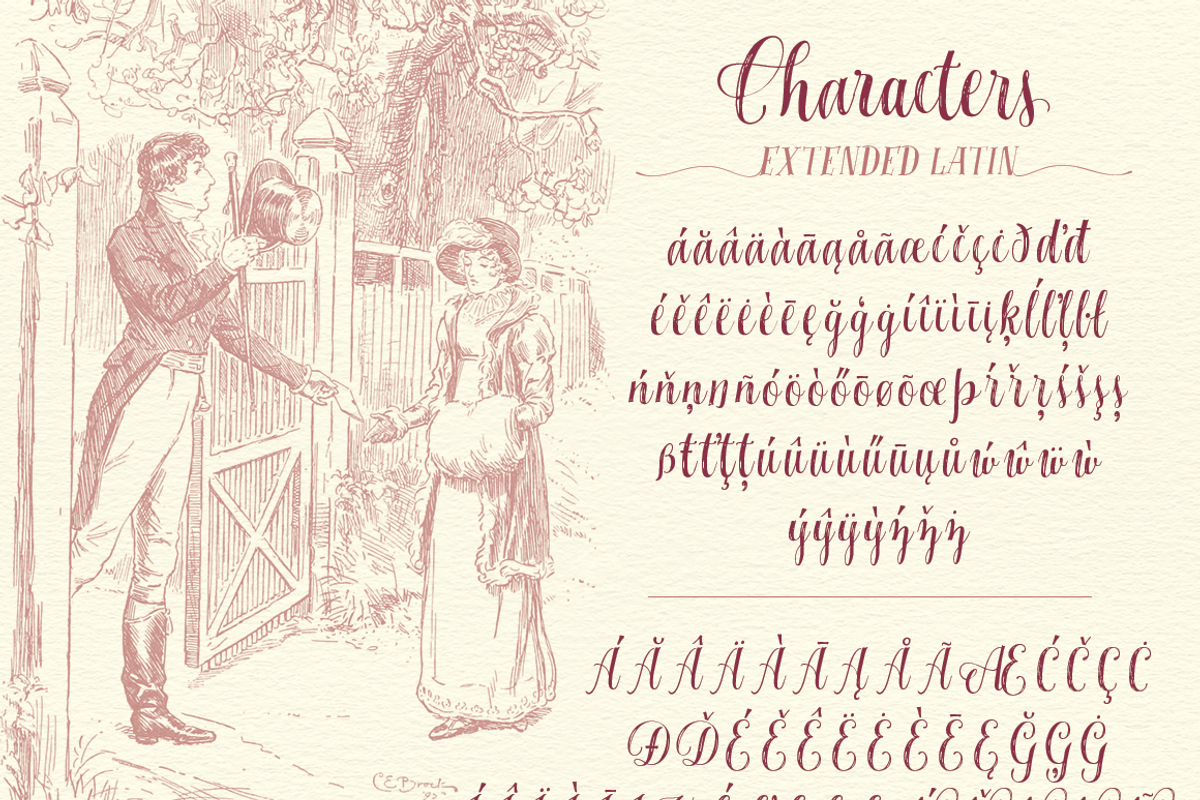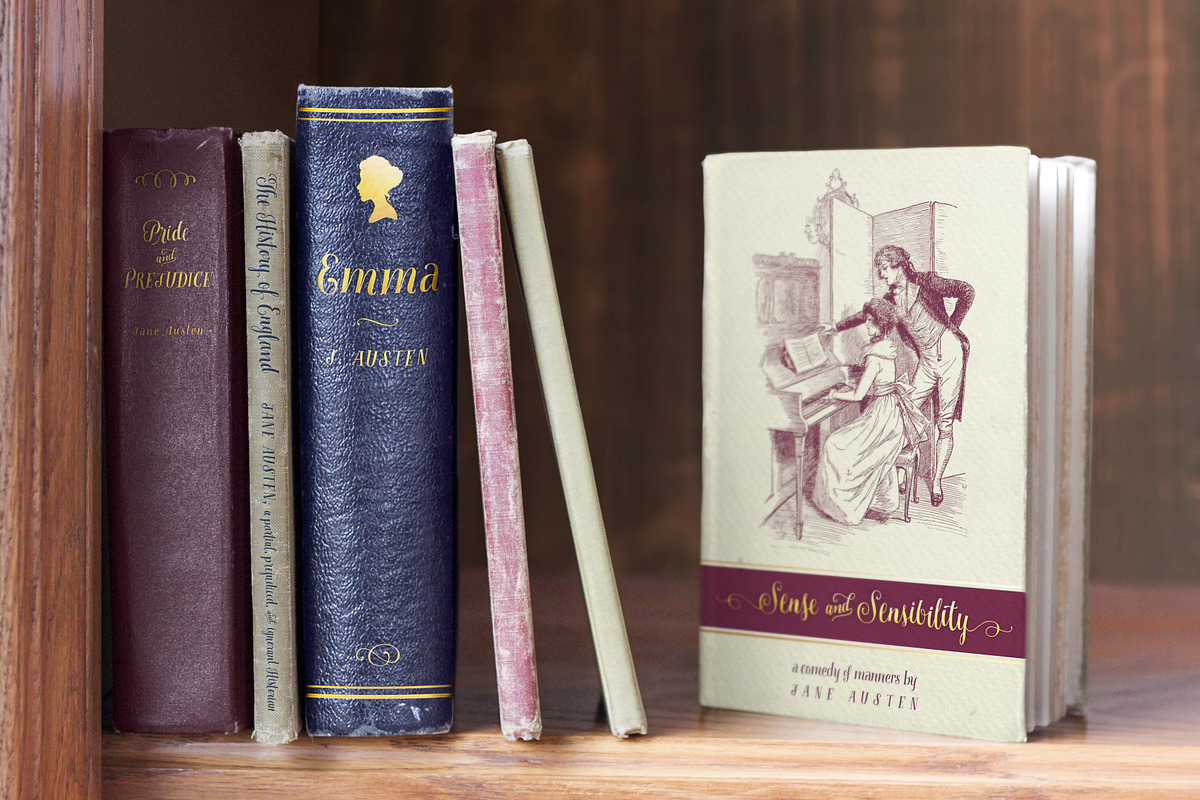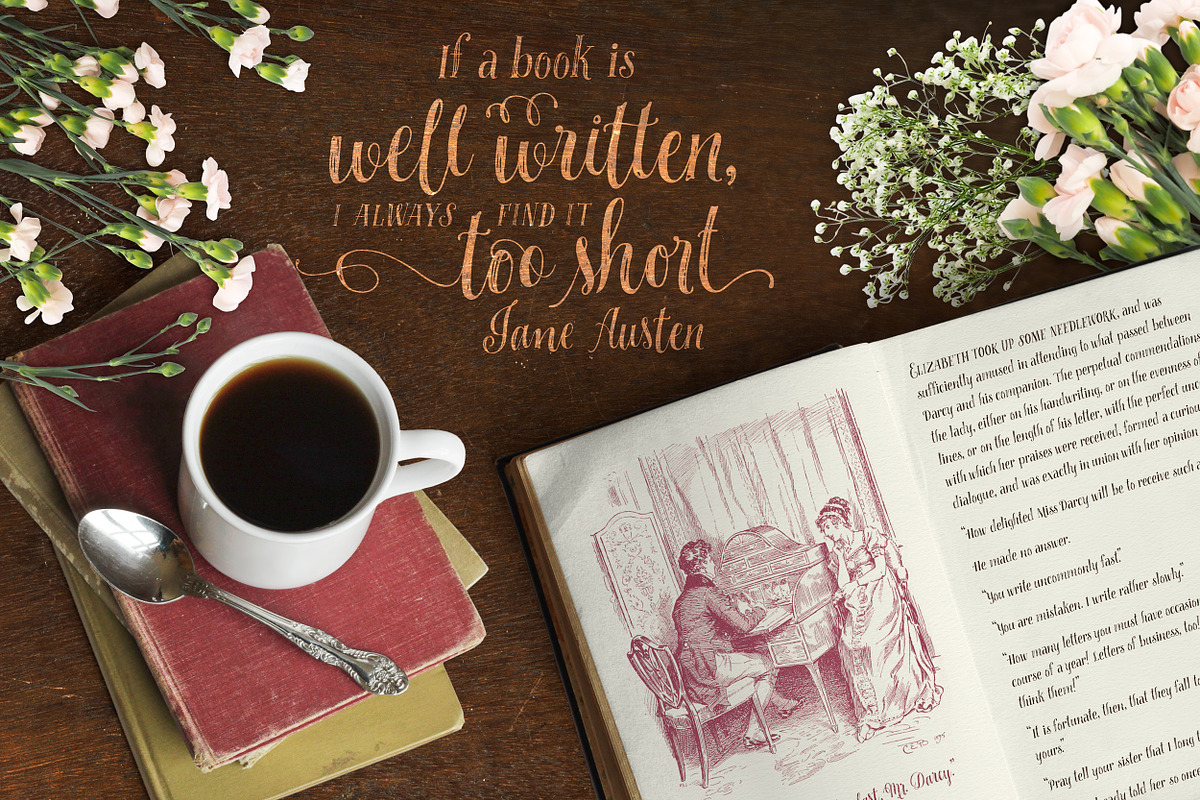
Miss Elizabeth Script
May I have the pleasure of introducing Miss Elizabeth- a lively script full of wit and vivacity, and just as charming, clever, and friendly as its namesake heroine from the classic Austen novel that inspired this work. Both elegant and powerful, Miss Elizabeth will add a rustic charm to your invitations, cards, home decor, branding, and more!
A Handy Character Sketch of Miss Elizabeth:
- 2 weights: Rustic and Refined
- Over 1430 characters
- 8 OpenType features (See below for list of features)
- Basic & Extended Latin Support (See below for list of supported languages)
More about the features:
★ 8 Opentype Features
- Smallcaps: (Display 6) Transforms your lowercase letters into elegant small capitals.
- Titling Alternates: (Display 6, 7) Transforms your text into matching, elegant roman-style letters.
- Stylistic Alternates: (Display 2, 6) Each basic Latin character has up to 8 alternates that will help you personalize your text.
- Contextual Alternates: (Display 5, 6) Uses Stylistic Sets 1-2 as well as Initials and Terminal forms to vary the characters in the string for a more handwritten look.
- Positional Forms (Initial & Terminal Forms): (Display 6) Elegantly start and end a lowercase string with Initial Forms and Terminal Forms.
- Standard & Discretionary Ligatures: (Display 6) Elegant pairs of two or more letters will further lend a handwritten-style elegance to your type.
- Swashes: (Display 8) These non-traditional swash characters will allow you to add flourishes to the beginning and end of the sentence.
- Ornaments: (Display 3, 8, 9) These flourishes and elegant ornaments will add the finishing touch to your design. Certain characters work together with Swashes to add flourishes to the beginning and end of a sentence.